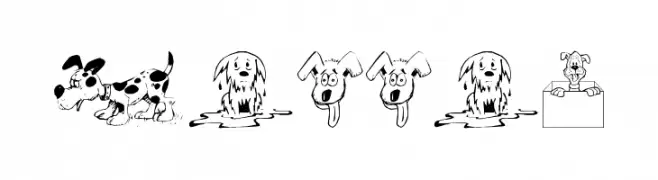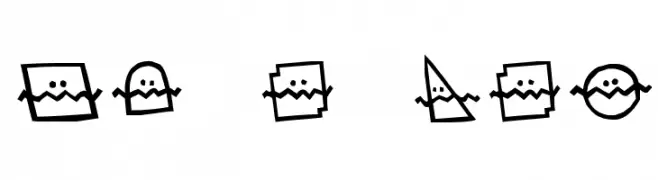
Font made from intricate classical statue illustrations.
A classic serif font with elegant strokes and pronounced serifs.
A bold, medieval-inspired font with sharp, angular lines and intricate serifs.
A whimsical, cartoonish font featuring unique characters and creatures.
Cartoonish, character-based decorative font with playful illustrations.
A modern, compressed sans-serif font with rounded edges and uniform stroke width.
A modern, italicized font with a compressed width and consistent stroke weight.
A modern, reverse italic, compressed font with consistent stroke weight.
A modern, expanded sans-serif font with smooth curves and a bold presence.
A modern, expanded italic font with smooth curves and a dynamic appearance.
A modern, expanded font with a reverse italic slant and bold, rounded characters.
A modern, expanded font with smooth, rounded characters and consistent stroke thickness.
A modern, decorative font with a unique lined pattern for dynamic visual appeal.
A modern, geometric sans-serif font with uniform stroke width and balanced proportions.
A modern reverse italic font with smooth, consistent strokes and a unique slant.
A modern, thin sans-serif font with clean lines and high legibility.
A sleek, modern thin italic font with a dynamic and elegant style.
A thin, reverse italic font with a modern and sleek design.
A modern, sans-serif font with clean lines and rounded edges, perfect for readability.
A modern, italic font with smooth curves and a dynamic slant.
A modern sans-serif font with a unique reverse italic slant.
A modern, rounded sans-serif font with excellent readability.
A bold, rounded sans-serif font with a modern and clean design.
A modern sans-serif font with rounded edges and uniform stroke width.
A modern, extended sans-serif font with smooth curves and clear readability.
A modern, narrow geometric typeface with clean lines and consistent spacing.
A modern, narrow sans-serif font with clean lines and consistent stroke widths.
A modern, oblique sans-serif font with a sleek and dynamic appearance.